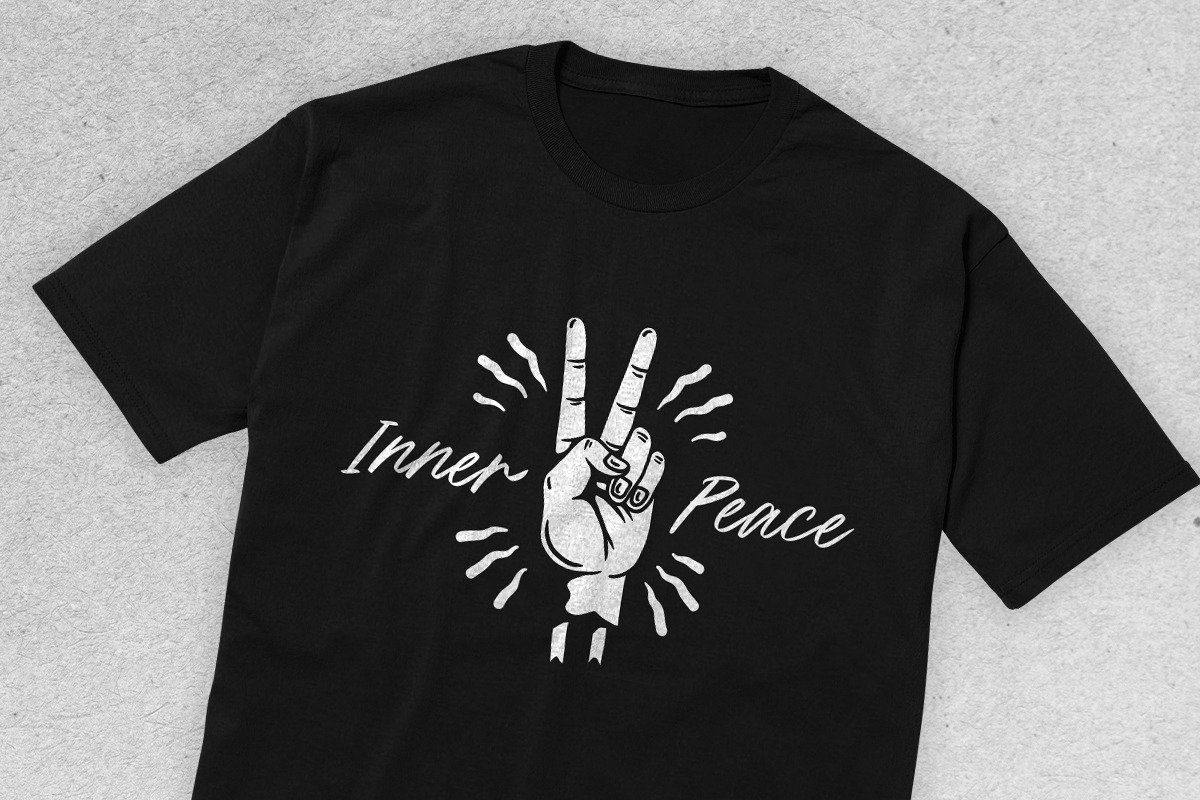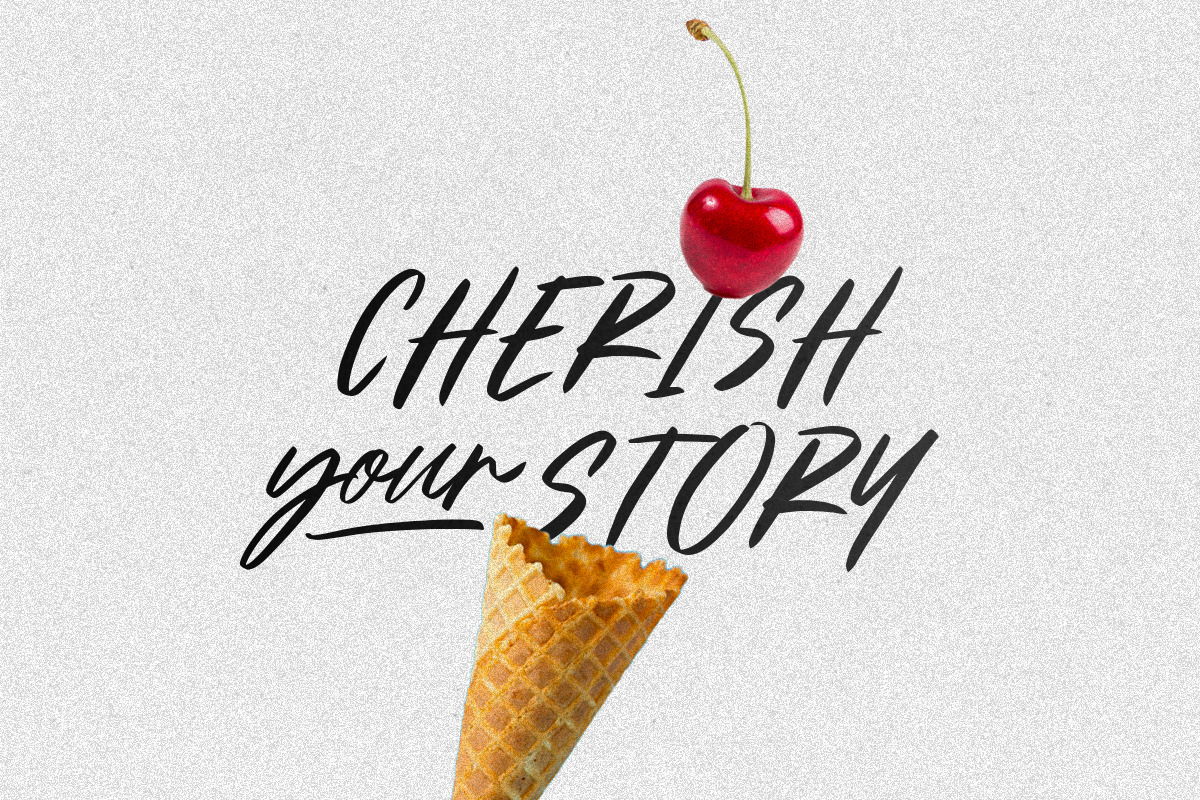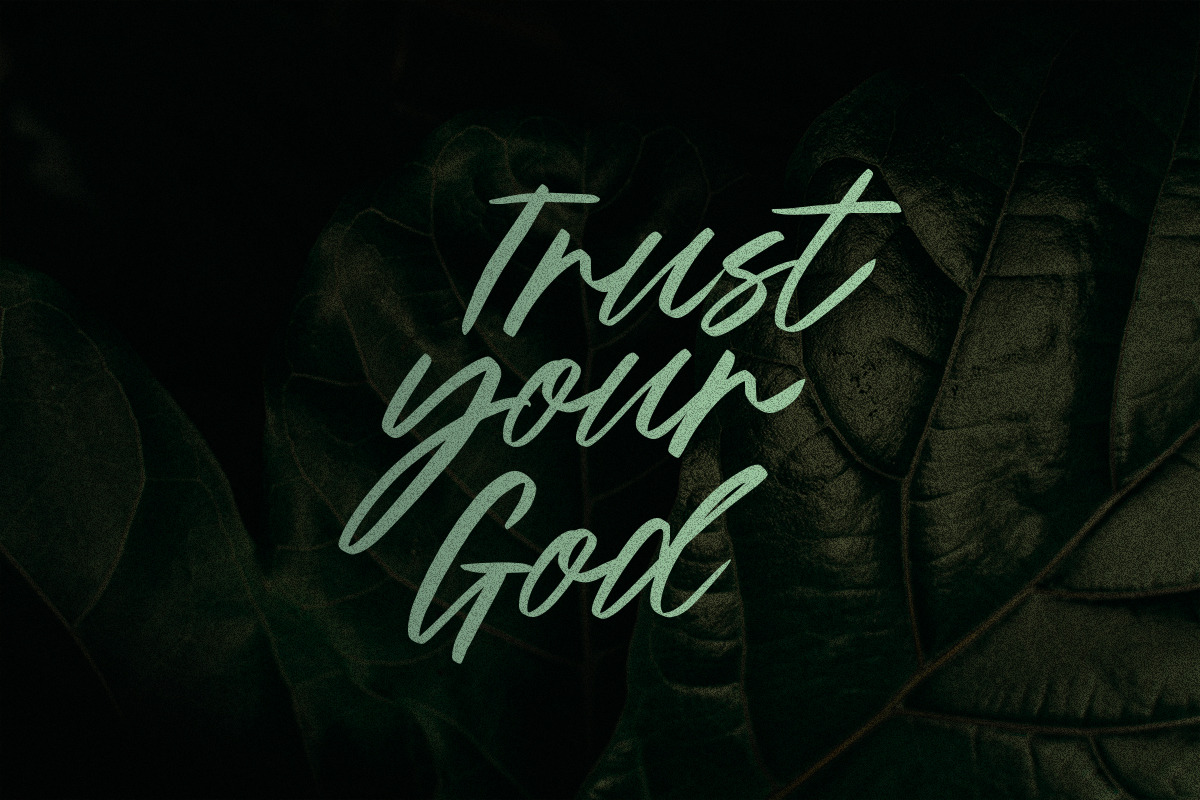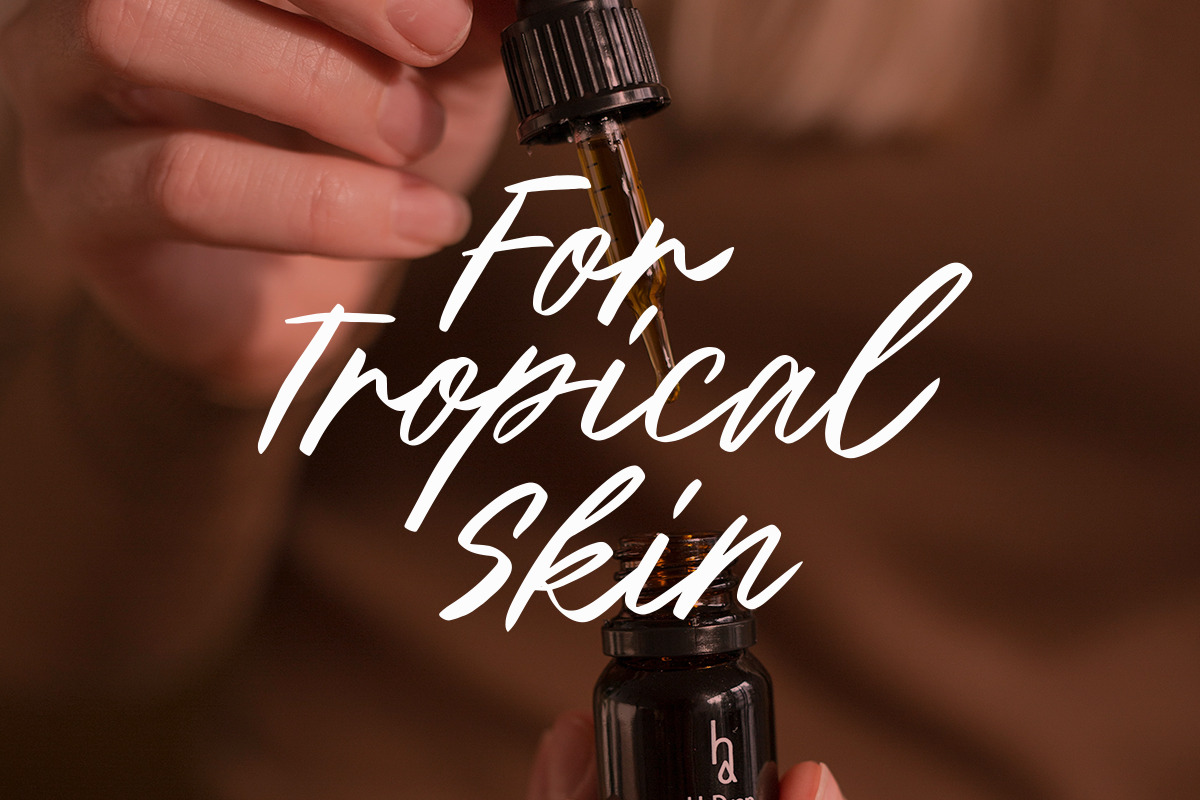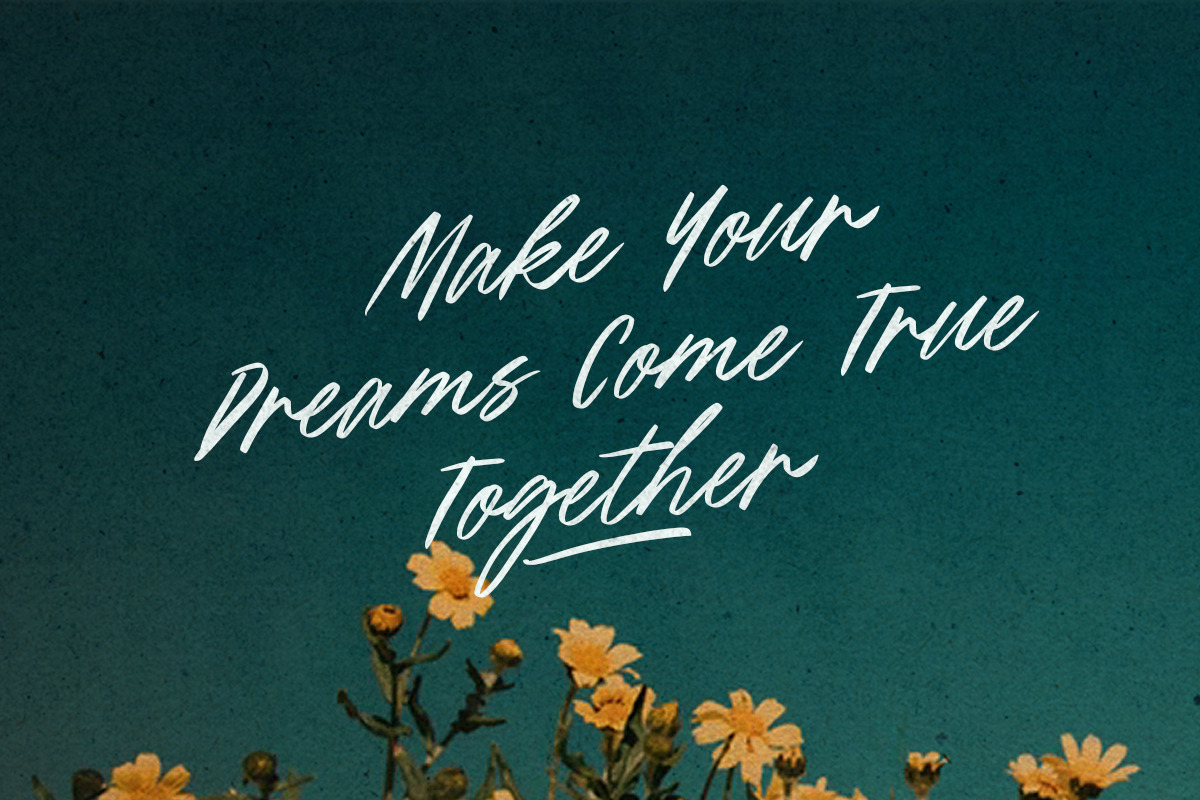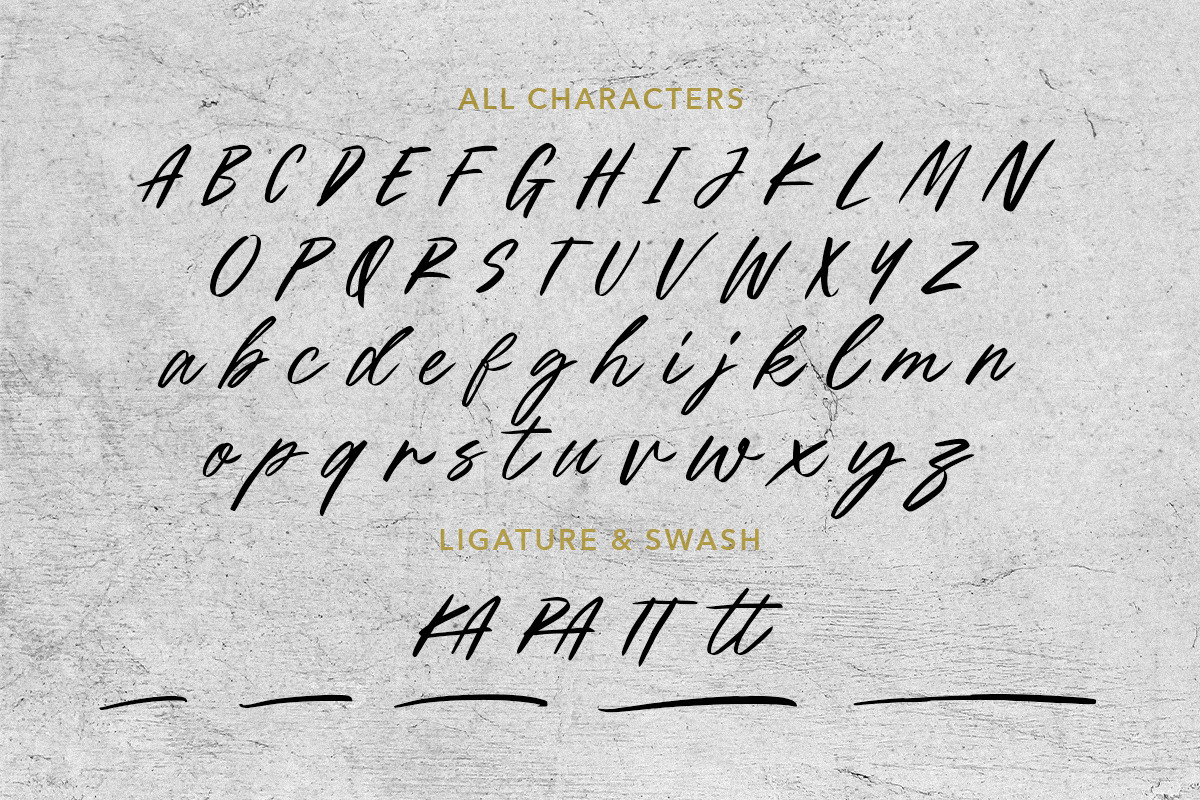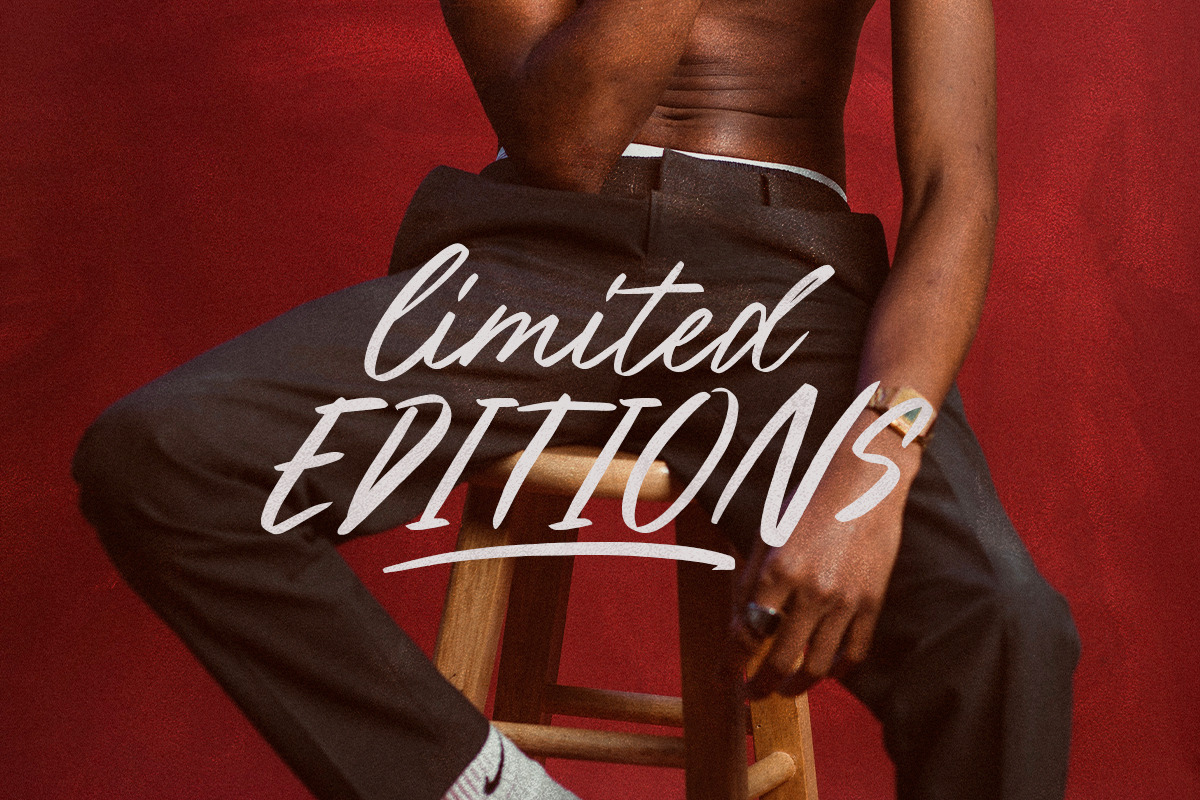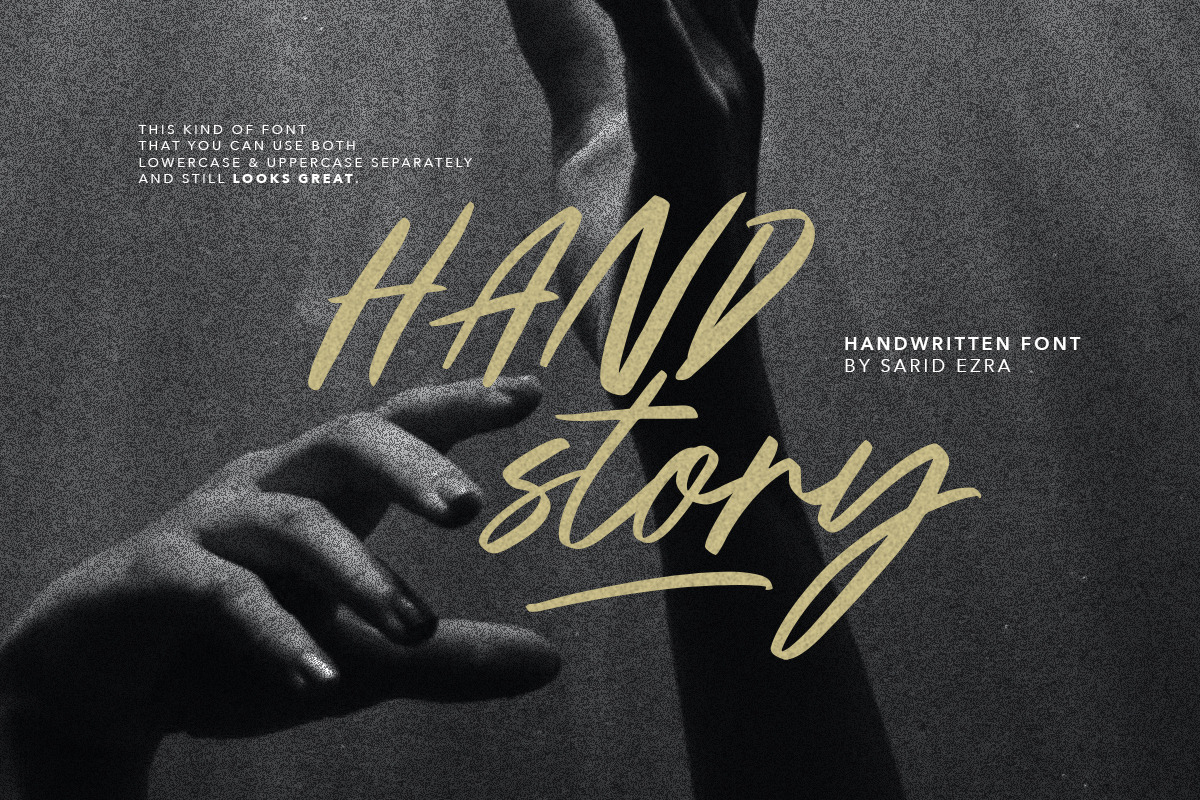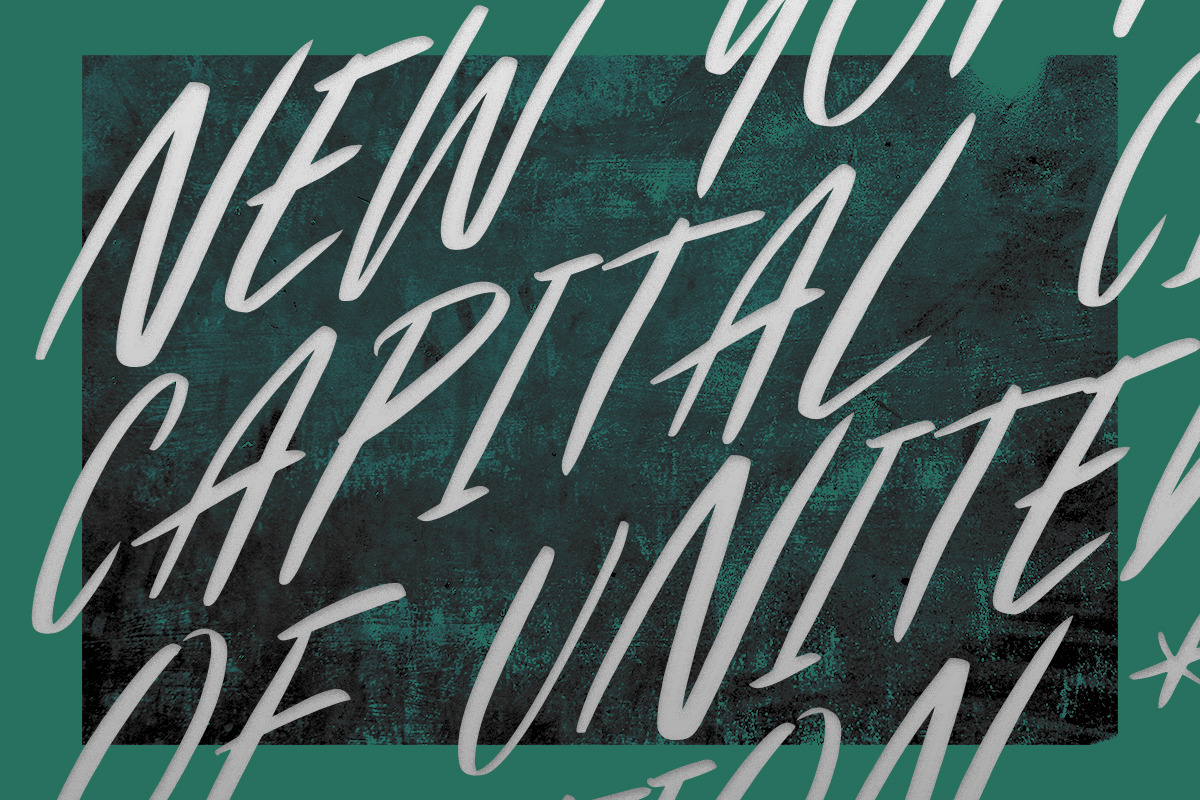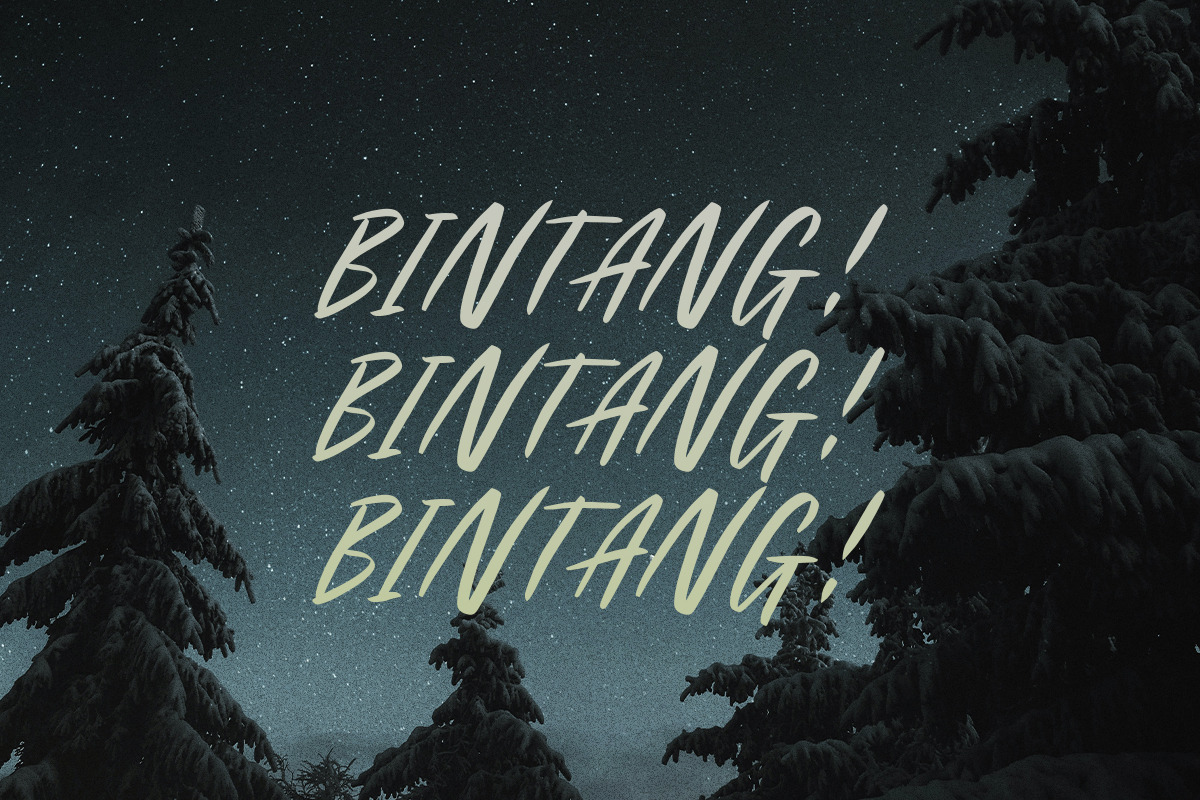
Handstory - Handwritten Font
Introducing, Handstory, a simple handwritten script!
Handstory is handwritten brush script that you can use both lowercase & uppercase separately and still looking great. You can use this font for any purposes such as a logotype, branding, and suitable for quotes. This font is so versatile, you can combine it wit your fonts collections. Handstory also contain ligature and underline. You can access the underline from opentype feature, just type underscore + number(1-3) for example: st_1ory. This font also support multilingual.